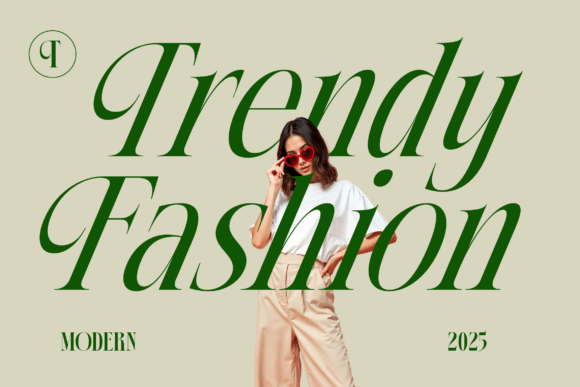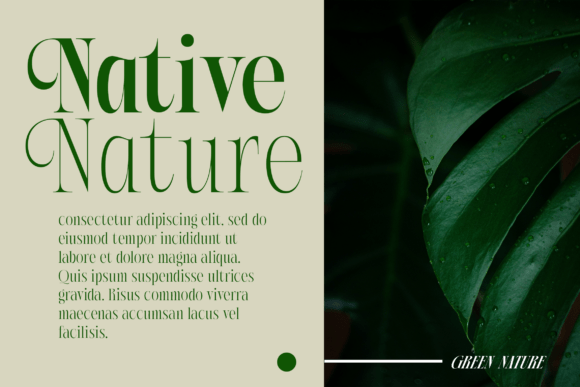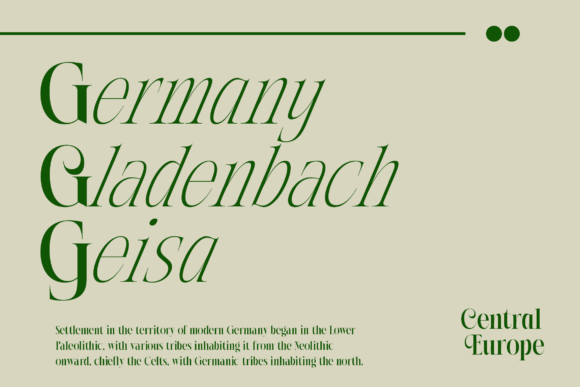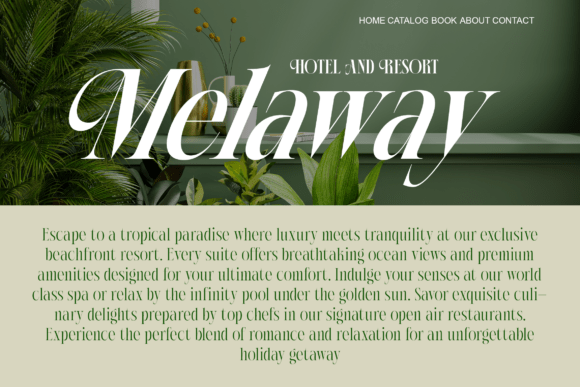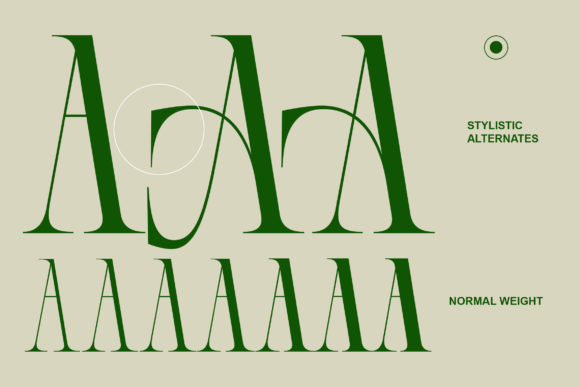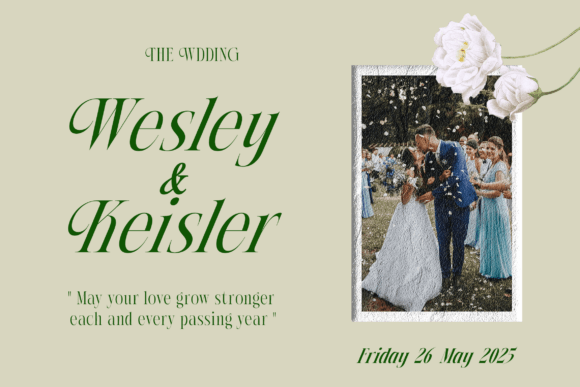
Introduction to Paskalara Font Font
Fonts play a crucial role in design, and the Paskalara Font font is a typeface that brings both character and versatility to any project. Whether you’re working on a branding project, a website, or a print design, the Paskalara Font font offers a unique style that can elevate your work.
Paskalara is a serif typeface designed with a quiet confidence that leans into calm elegance rather than loud ornamentation.
Its gentle curves and measured stroke contrast give it a relaxed presence, yet it still carries enough sophistication to hold its own in more formal settings The design embraces a go-with-the-flow attitude: it doesnβt try too hard, but it still looks refined in any situation.
Key Features of Paskalara Font Font
Why Choose Paskalara Font Font?
The Paskalara Font font is more than just a typeface β it’s a design tool that helps you communicate your message with style and clarity. Its unique character set and versatile design make it suitable for a wide range of applications, from elegant invitations to bold headlines.
With its carefully crafted letterforms and balanced proportions, the Paskalara Font font ensures readability and visual appeal across all mediums.
What makes Paskalara Font font special?
The Paskalara Font font stands out with its unique design, exceptional readability, and versatility across various design applications.